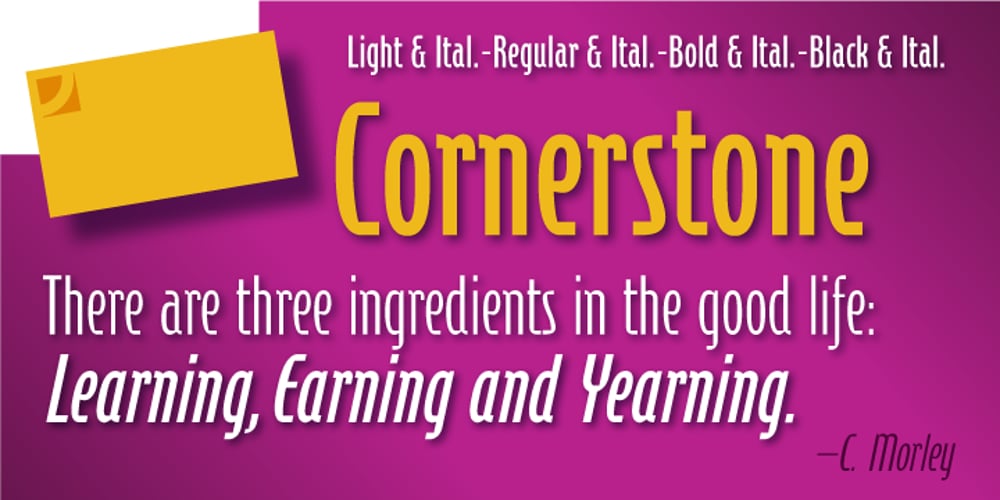
Cornerstone
Cornerstone font
Cornerstone Font Family was designed by published by Jonahfonts. Cornerstone contains 8 styles and family package options. Condensed Gothic, great for tight-fitting headlines and other condensed titling situations. Applications include Headlines, ads, invitations, captions, packaging, bulletins, posters, and greeting cards.